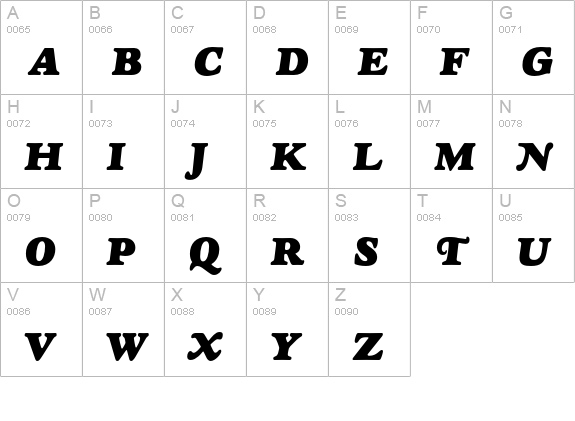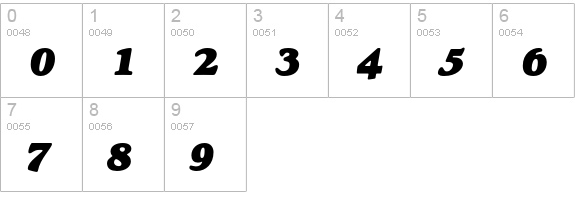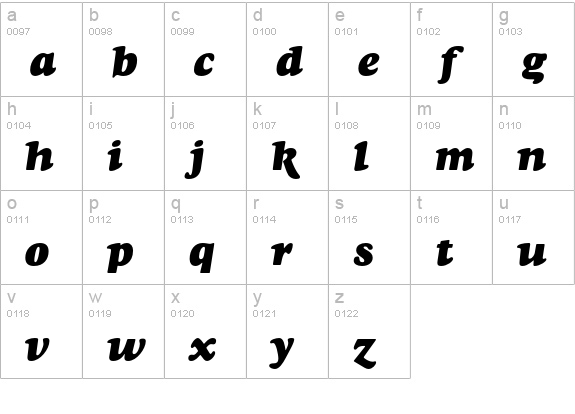
Goudy Heavyface Italic Font Details
Goudy Heavyface Italic is a distinctive, italic variant in the Goudy typeface family \xE2\x80\x94 well suited to design and typography projects.
Goudy Heavyface Italic is a timeless and elegant font that exudes sophistication and class. Its bold and slanted design commands attention and adds a touch of flair to any project. With its strong, yet graceful curves, Goudy Heavyface Italic is perfect for making a statement in headlines, titles, or branding materials. And the best part? This stunning font is completely free to download at FontsMarket.com. Whether you're working on a marketing campaign, designing a logo, or creating a stylish invitation, Goudy Heavyface Italic will elevate your work to the next level. Don't miss out on this fabulous font - download it today and let your creativity shine!